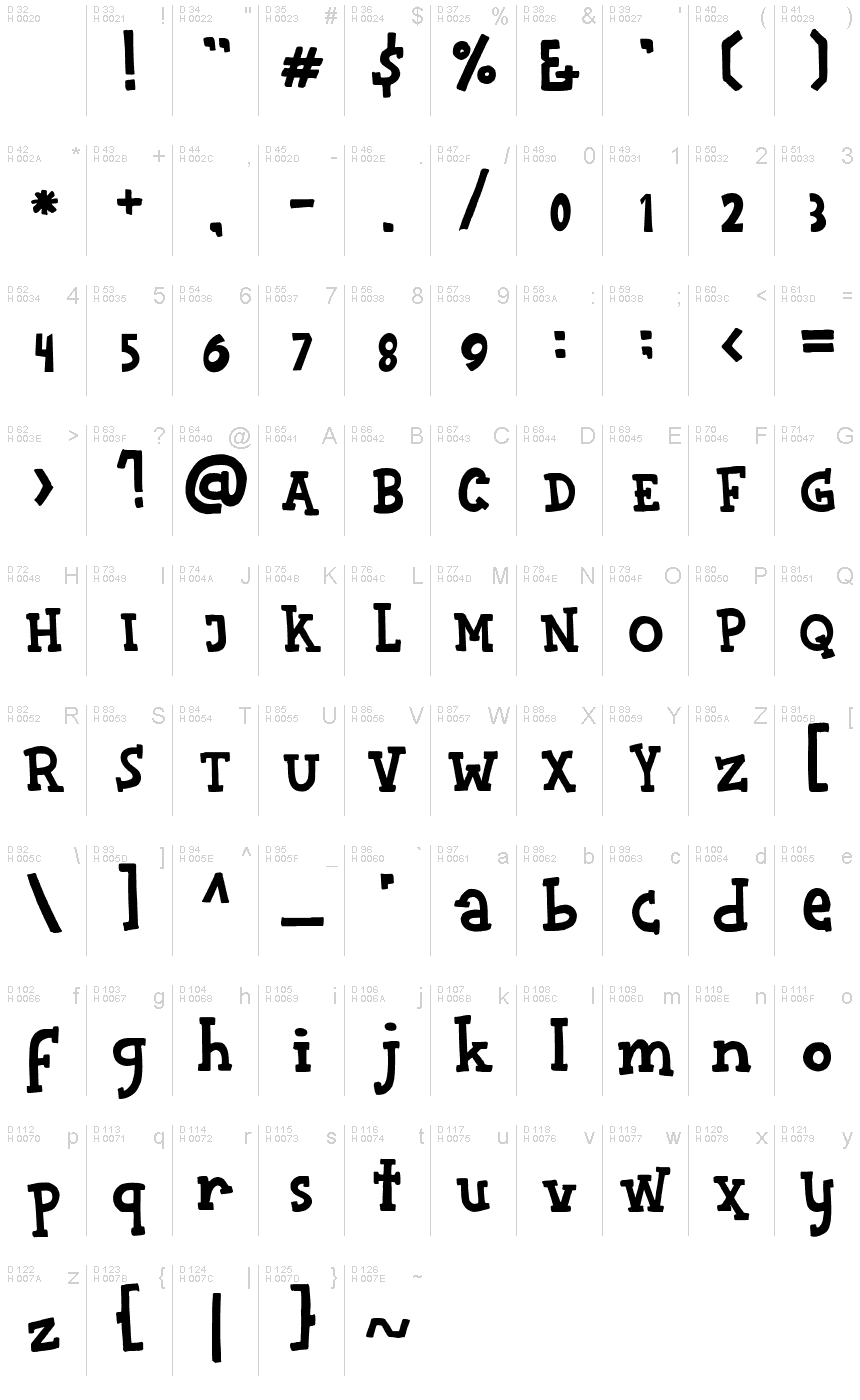
Snowflakes
Snowflakes, crafted by the imaginative minds at Alpaprana Studio, is a semi-bold display font that brings a dash of whimsy and wonder to any creative canvas. With its charmingly unique style, this font encapsulates the joy and individuality of a winter wonderland, making each character as special as a snowflake itself.
Perfect for an array of design projects—from branding endeavors and logo creations to stylish lettering and logotypes—Snowflakes shines in contexts that call for a touch of playfulness. Its versatility extends to fashioning eye-catching statements on clothing items, posters, magazine layouts, packaging designs, shopping bags, t-shirts, book covers, photography backdrops, and special event materials.